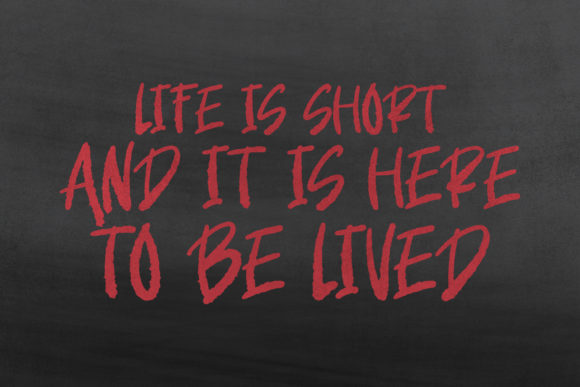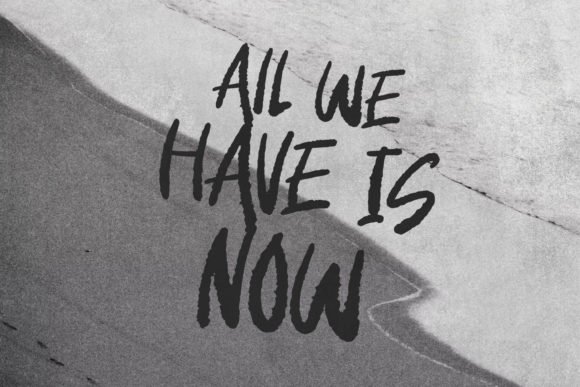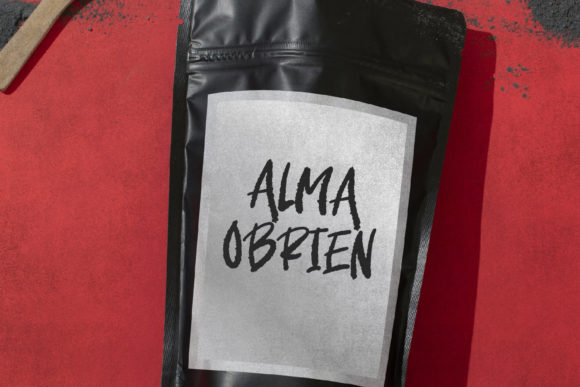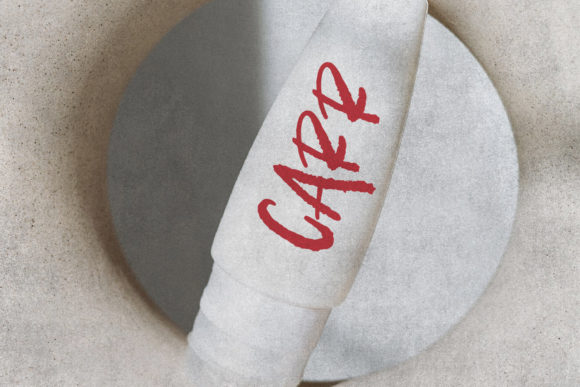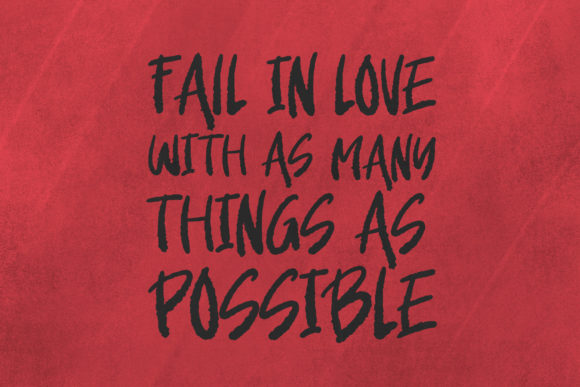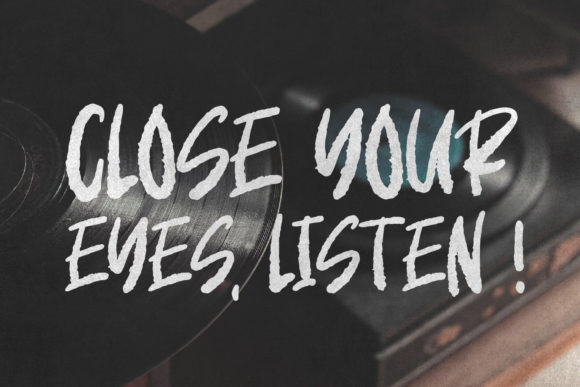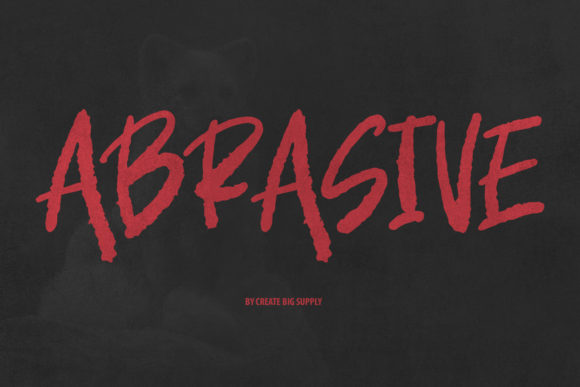
The Creepy Charm of Abrasive Font: A Designer’s Delight
I still remember the design project that led me to discover the Abrasive font. I was working on a t-shirt design for a client who wanted a bold, edgy look. I had spent hours browsing through font libraries, but nothing seemed quite right. That was when I stumbled upon Abrasive – a creepy and brushed display font that instantly caught my attention. Its unique texture and distressed look added a perfect blend of grit and style to my design.
An Honest Review of Abrasive Font
What I Love About Abrasive Font
• Unique texture: Abrasive’s distressed look gives it a one-of-a-kind personality that’s hard to find in other fonts.
• Versatility: This font is suitable for a wide range of designs, from t-shirts and sportswear to logos, advertisements, and clothing.
• 💡 Instant attention-grabber: Abrasive’s bold and edgy design makes it perfect for grabbing attention in any design project.
While Abrasive is an excellent font, there are a few things to keep in mind:
• 🤔 Legibility at small sizes: Abrasive’s distressed texture can make it harder to read at smaller font sizes. It’s best used at larger sizes where its unique texture can shine.
• ⚠️ Overuse: While Abrasive is a great font, using it too much can make your design look overwhelming. Balance it with simpler fonts for a more cohesive look.
The Backstory of Abrasive Font
Abrasive font was designed with the intention of creating a bold, edgy font that would add a touch of grit to any design. The designer wanted to create a font that would stand out from the crowd, with a unique texture and distressed look that would grab attention. The result is a font that’s perfect for designers who want to add a bit of attitude to their work.
Font Name Abrasive Font
Author Create Big Supply
Q: Is Abrasive font suitable for body text?
A: While Abrasive font is bold and attention-grabbing, it’s not ideal for body text. Its distressed texture and bold design make it better suited for headlines and titles.